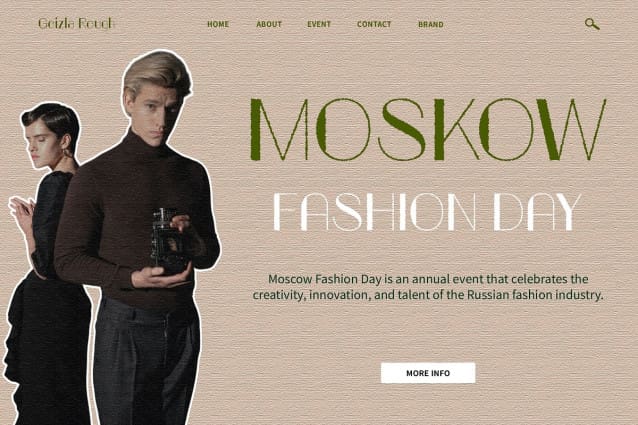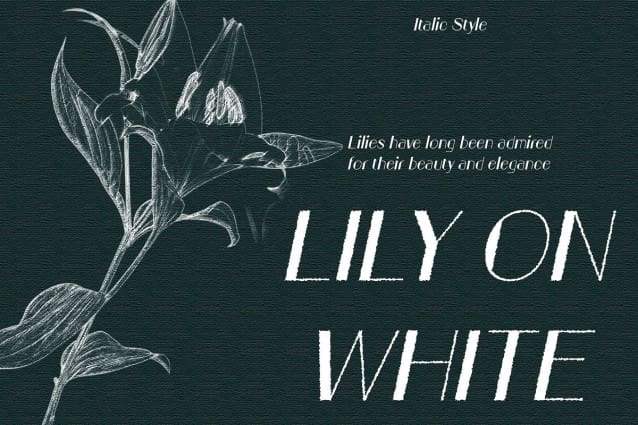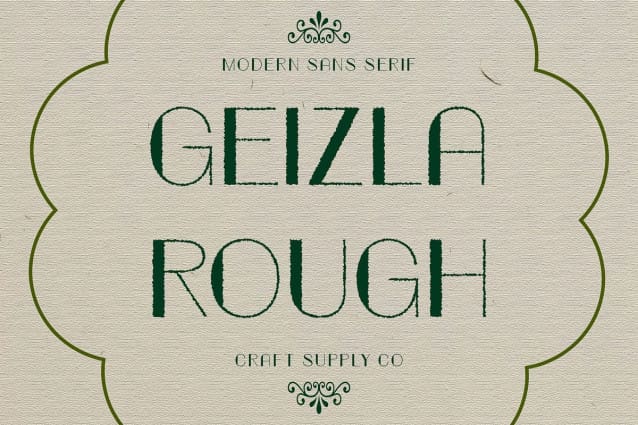
Geizla Rough Font
Geizla Rough Font: Embracing Art Deco with Vintage Appeal. Art Deco Inspiration Geizla Rough draws inspiration from the iconic Art Deco movement, featuring clean lines, geometric shapes, and a sense of sophistication reminiscent of the Roaring Twenties.
Vintage Display Font With its rough effect, This font exudes a vintage charm that transports viewers back in time. Each character carries the essence of yesteryears, adding nostalgic flair to any design.
Sans Serif Elegance The font’s sans serif design offers a modern twist to the Art Deco style, combining elegance with contemporary appeal. Its sleek and streamlined appearance makes it ideal for eye-catching display purposes.
Versatile Application This font versatile nature allows it to be used across various design projects. From posters and signage to branding and packaging, it adds a touch of retro sophistication to any application.
Timeless Elegance with a Vintage Twist This font seamlessly blends Art Deco inspiration with vintage charm, offering a versatile display font suitable for a wide range of design applications. Its rough effect adds character and depth, making it a standout choice for designers seeking to evoke nostalgia and sophistication in their projects.